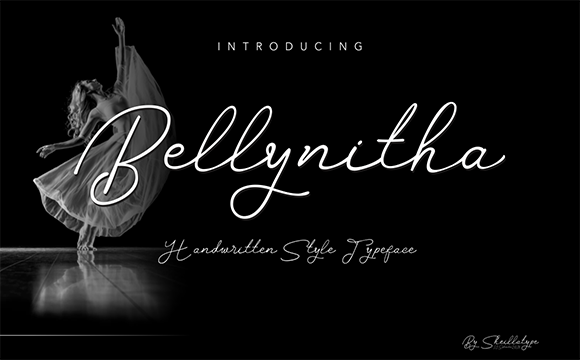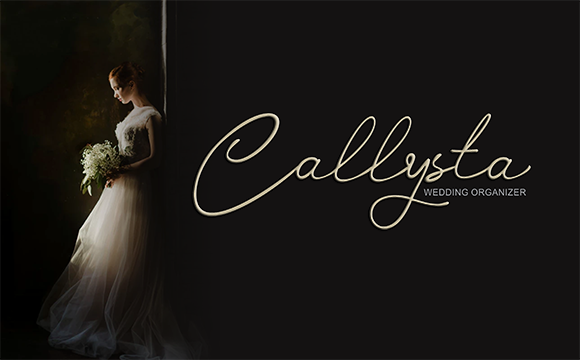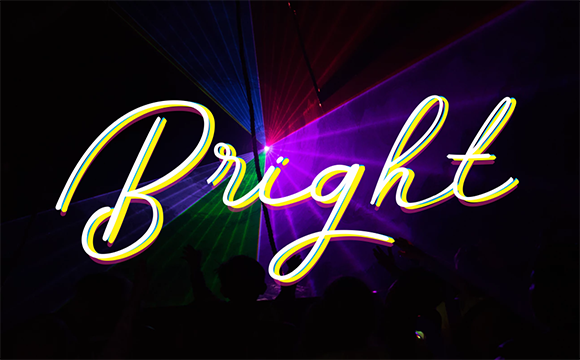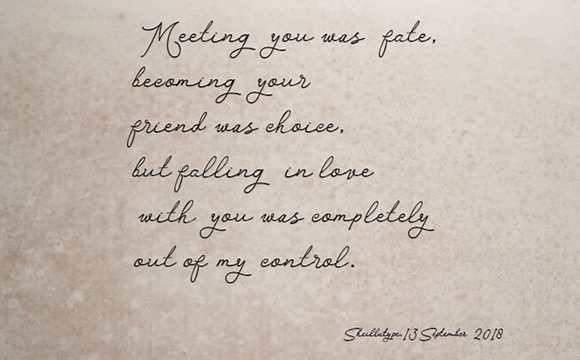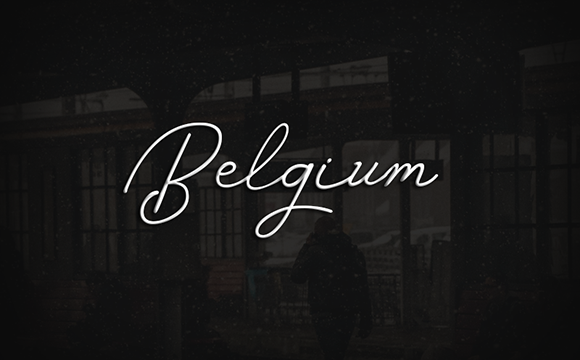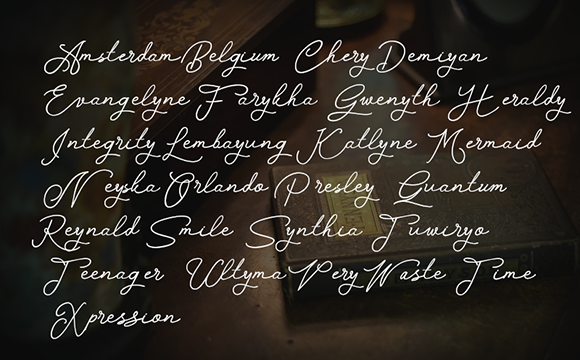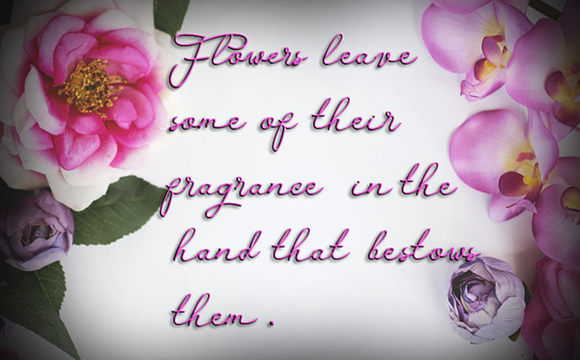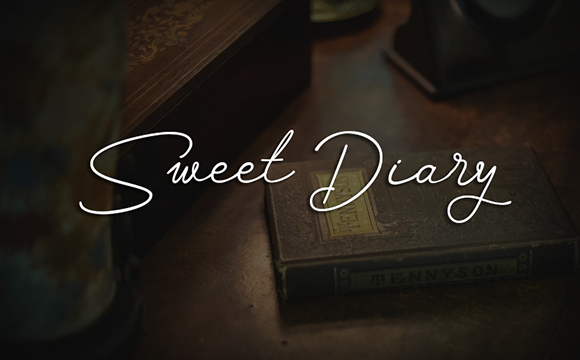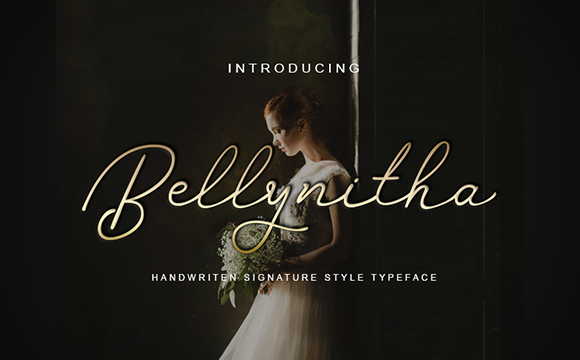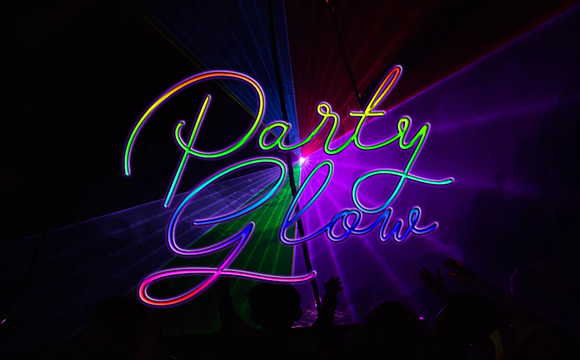
Bellynitha Font
About Bellynitha Font
The Bellynitha is a script that is inspired by the gentle movements of a graceful dancer so that it’s dynamic and curved. Its characters give you a soft and calm feel, which makes it perfect for: signatures, logos, photography, weddings, beauty products, and much more!